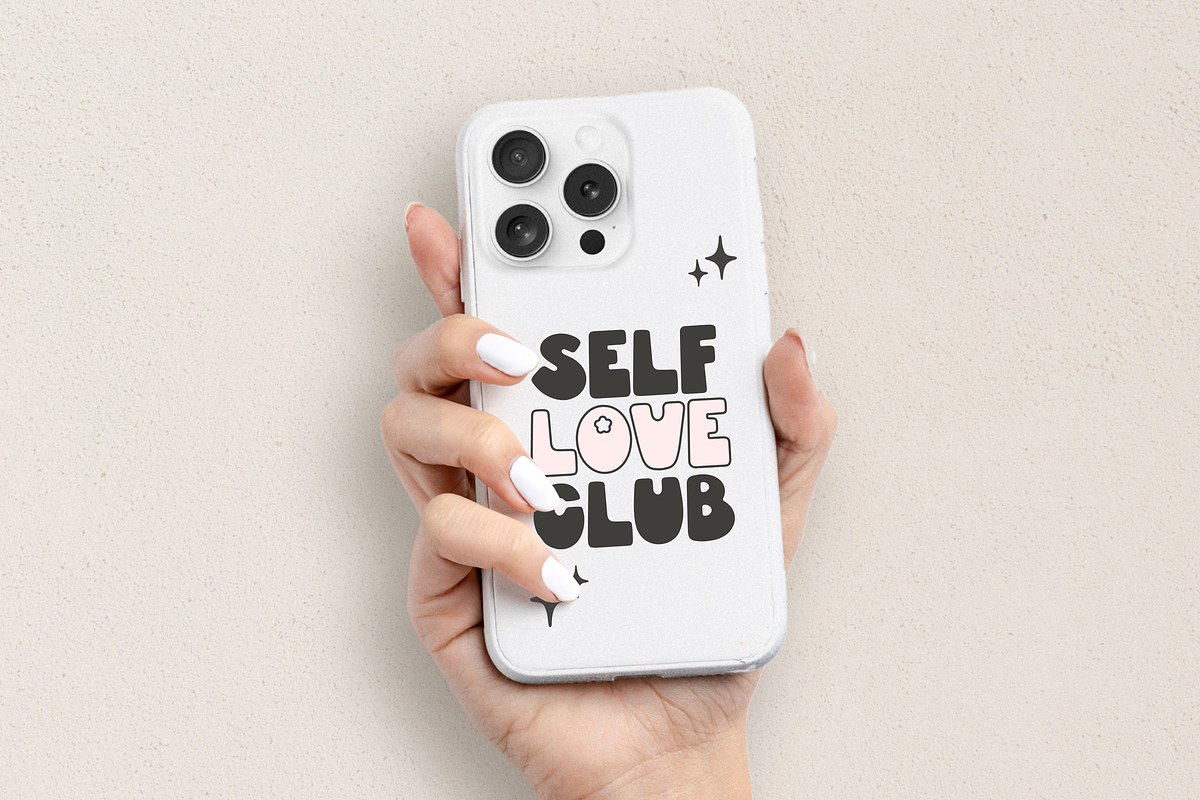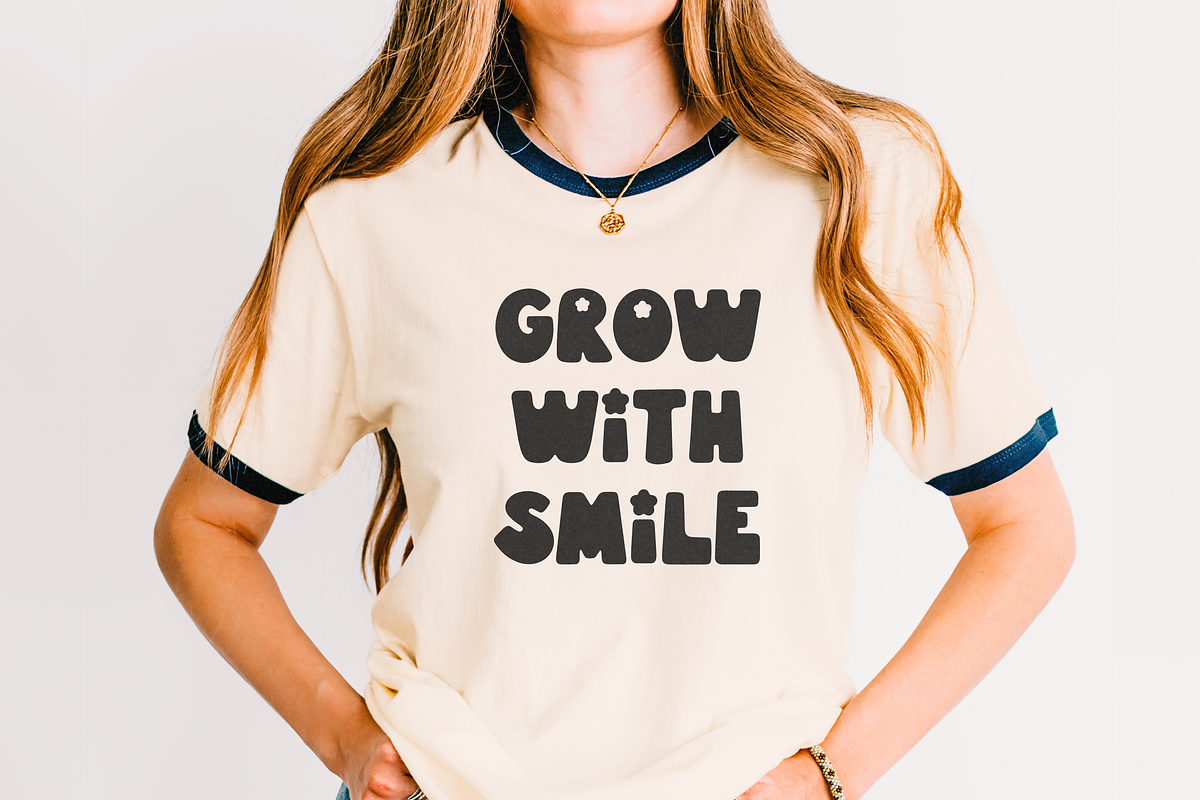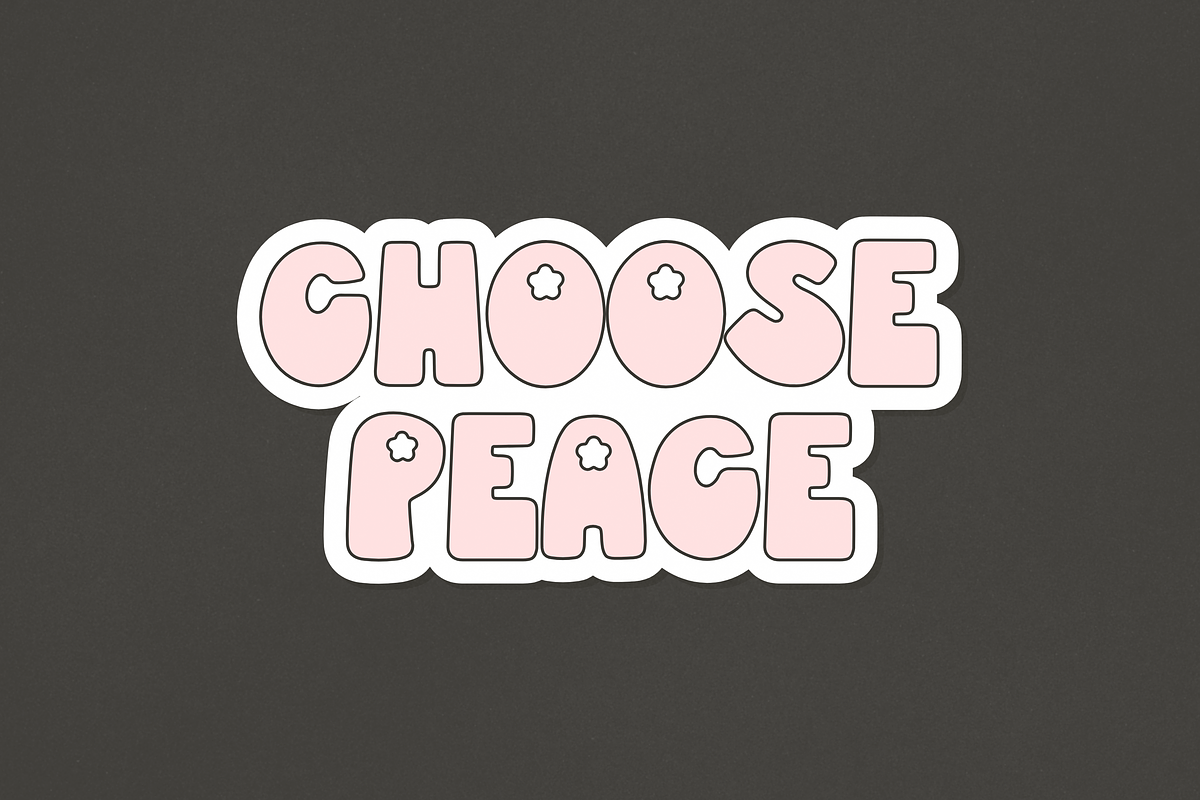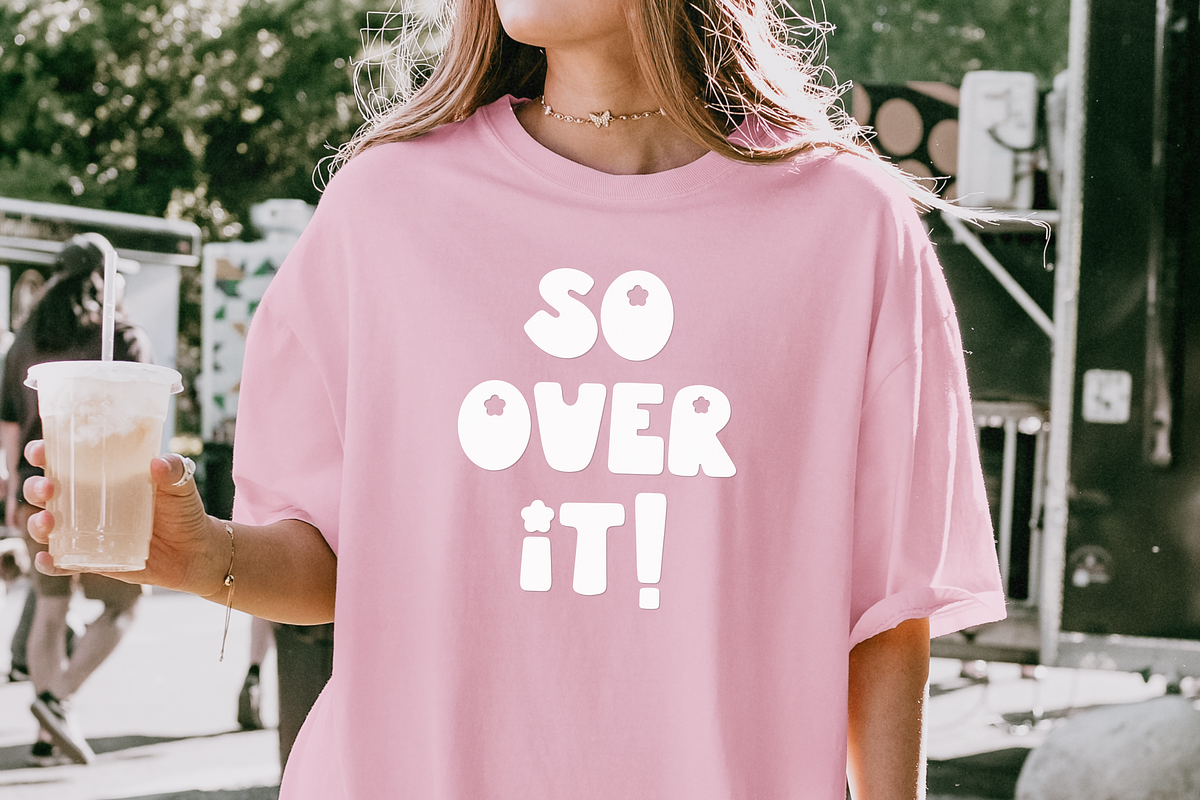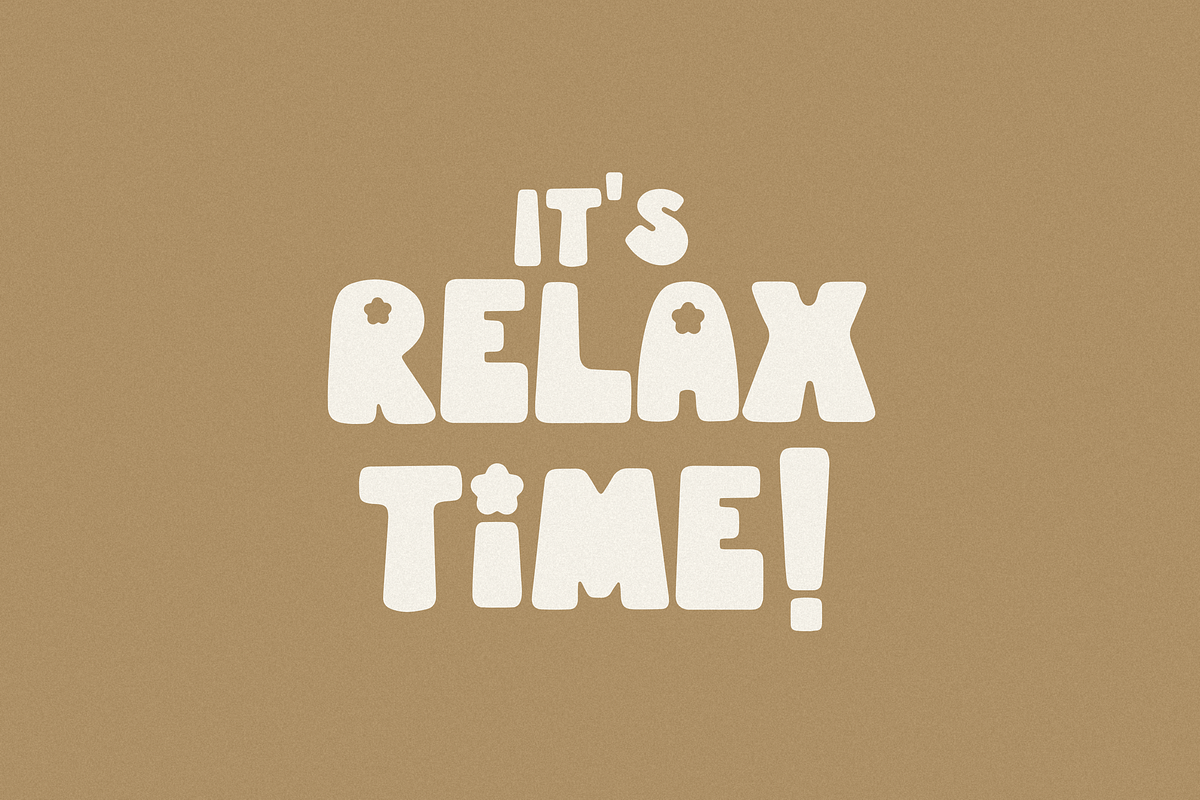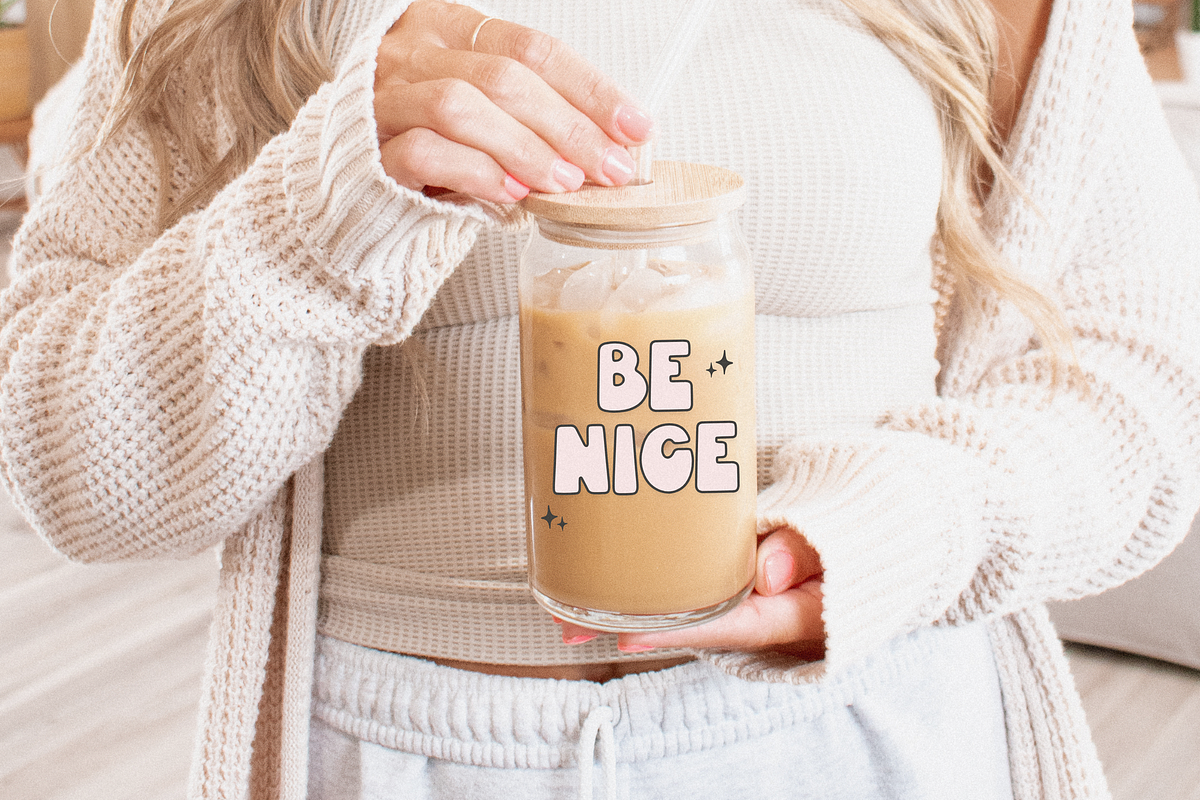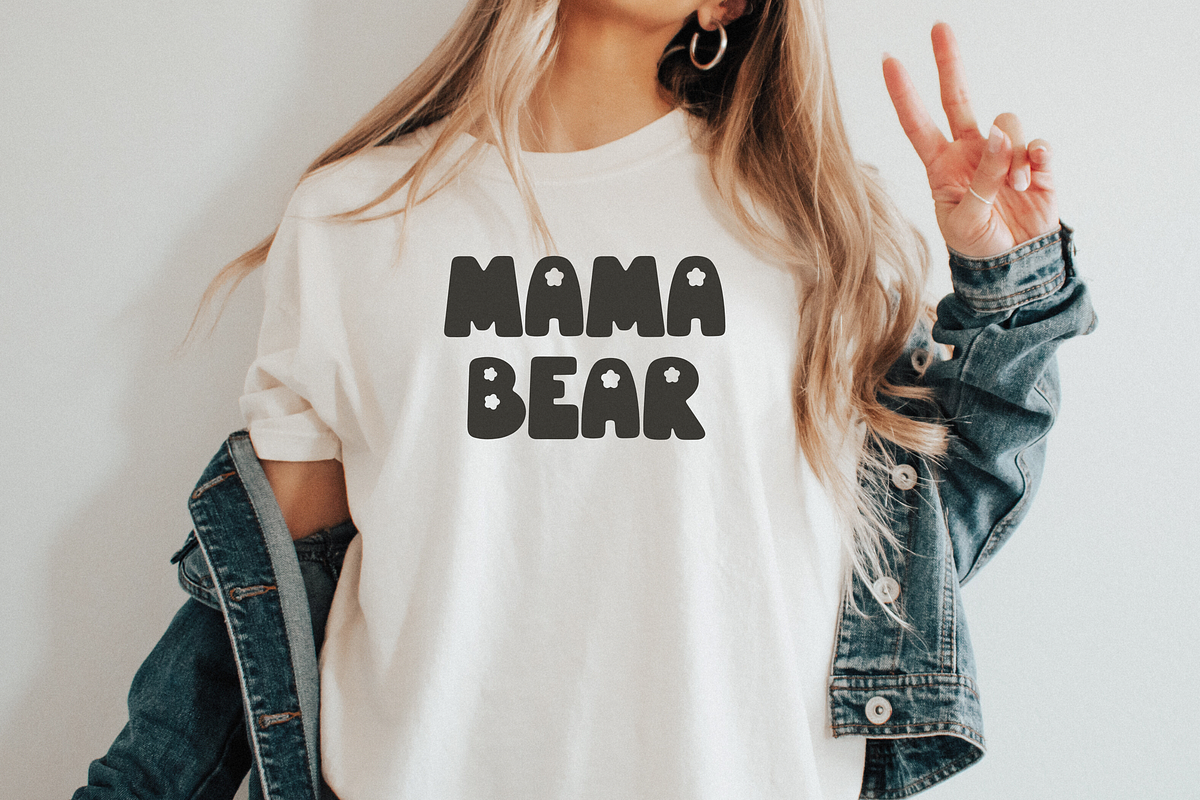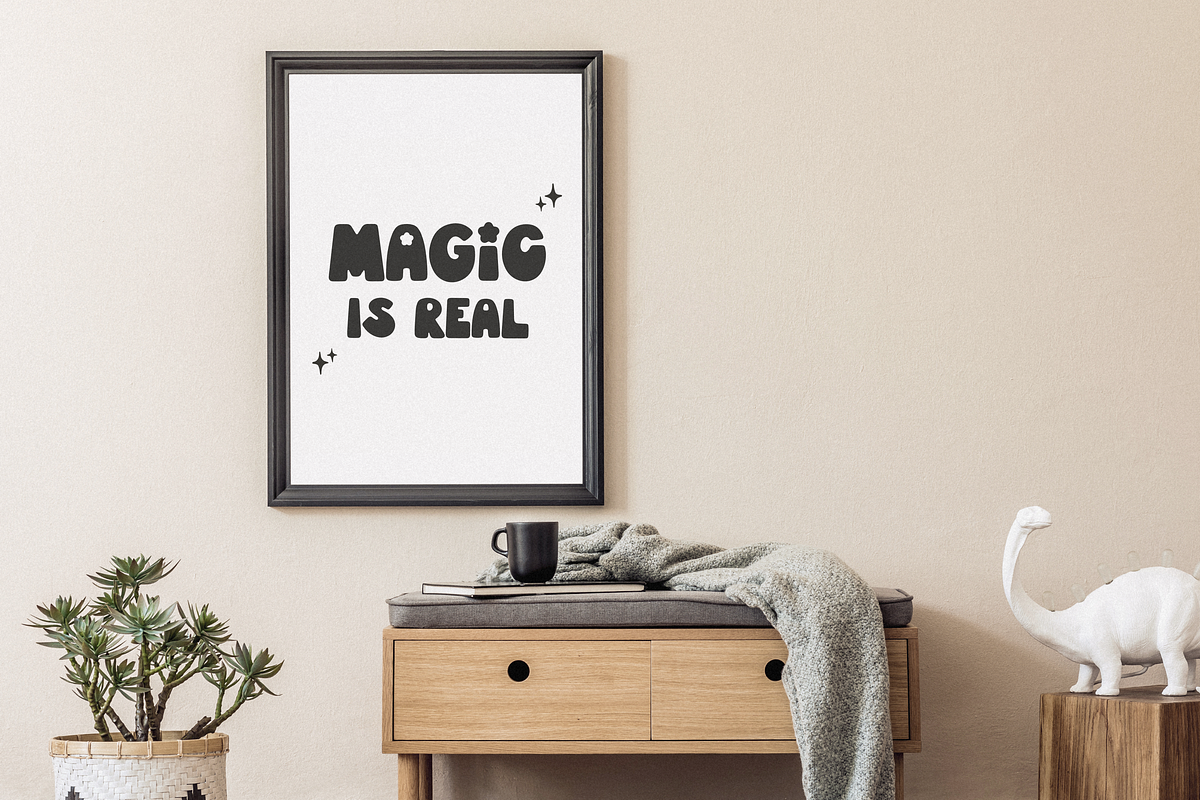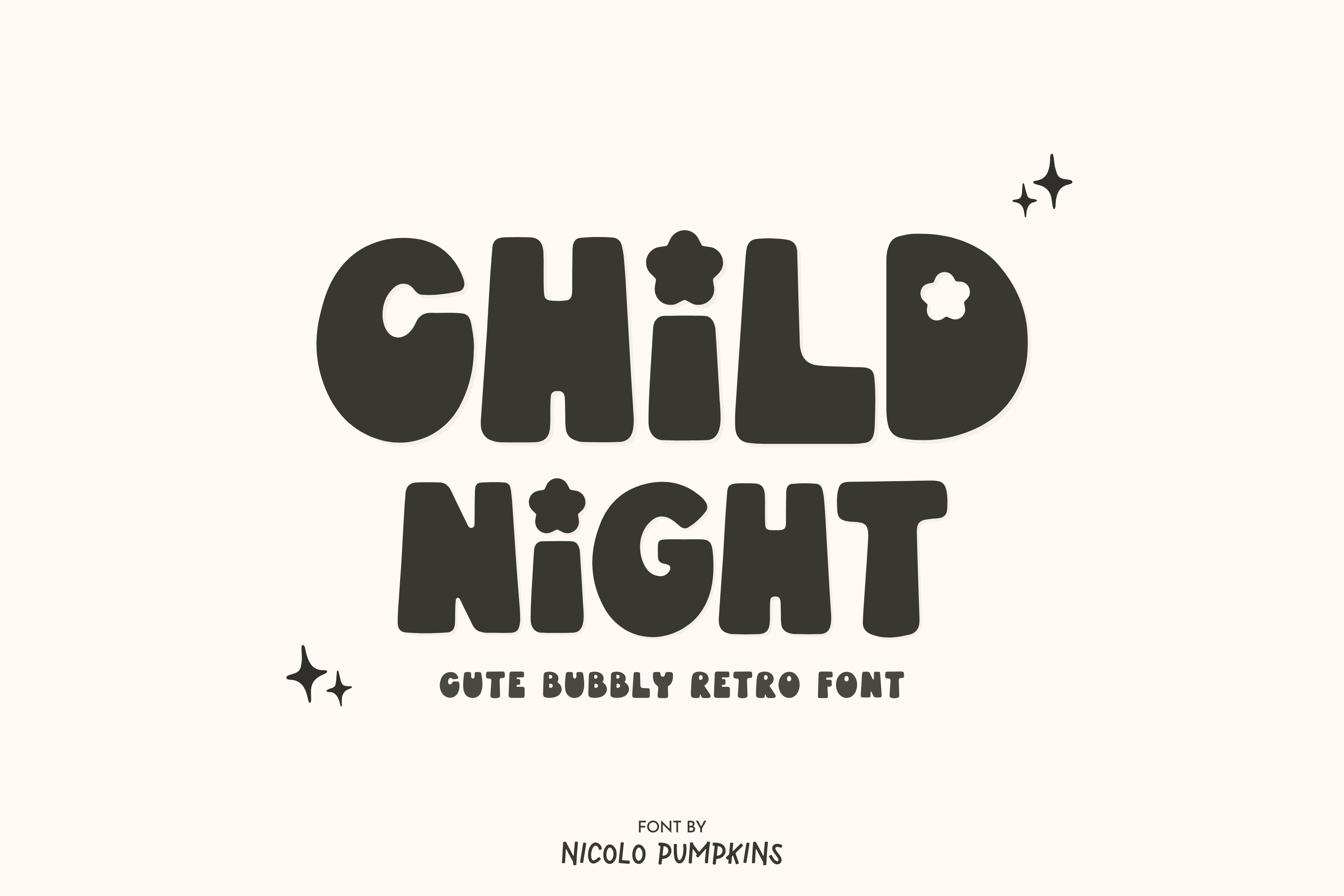
Child Night Font
✿ Child Night FONT ✿ A cute bubbly retro display font with 70s, hippie and floral style
✿ Child Night is an ALL CAPITAL FONT.
✦ Child Night FONT is perfect for: shirts, mugs, logos, wedding invitations, poster, greeting cards, social media, branding, Procreate, Cricut and more!